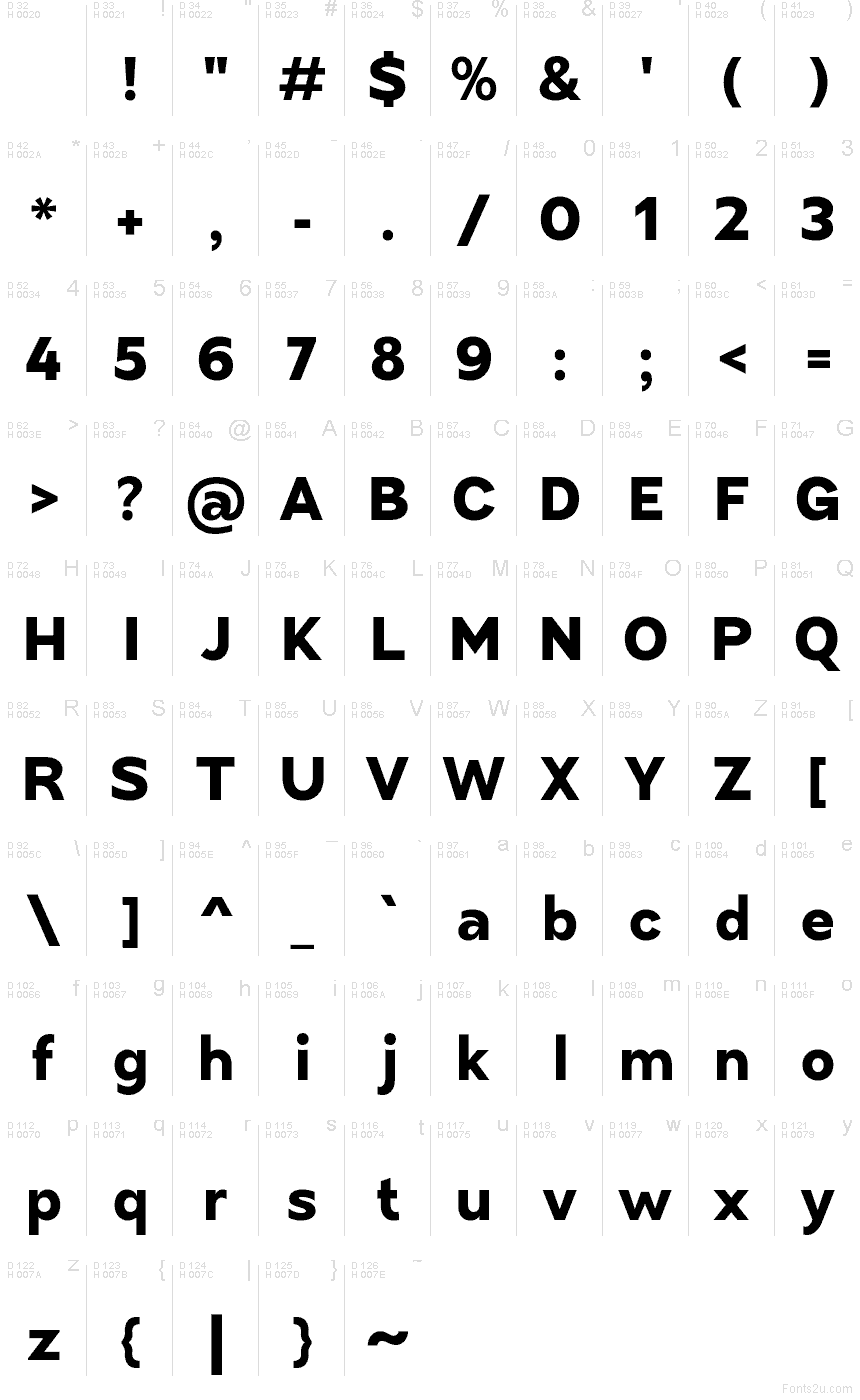
Aikabon Extra Bold
Aikabon Extra Bold font by Aleksey Ryabov is a free sans serif font that knows how to make a statement without sacrificing clarity. Its wide, inky-black shapes and tight construction give every word a solid, bricklike presence, yet the clean geometry keeps it legible even at smaller headline sizes. Part of the Aikabon family, this weight packs real punch—letters feel sturdy and grounded, with straight cuts and confident curves that read as bold, not shouty.
Using Aikabon Extra Bold, you can anchor logo wordmarks, hero headlines, posters, product packaging, social graphics, and bold website banners with a consistent, no-nonsense voice. This free font shines when you keep text short and strong, letting the dense letterforms carry the visual weight. For longer copy, pair it with a lighter, simpler sans serif from the same project to keep things readable while Aikabon holds the spotlight.